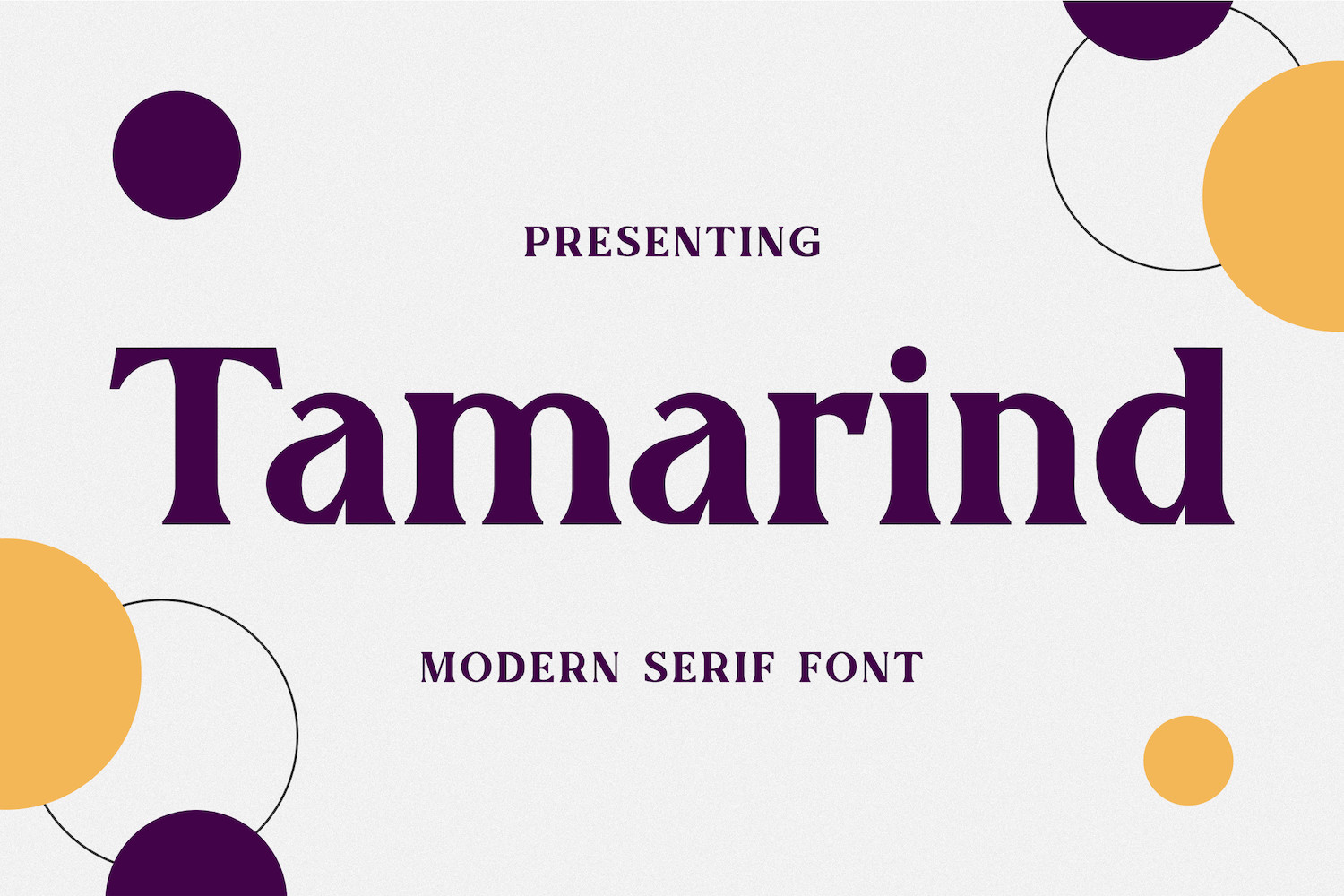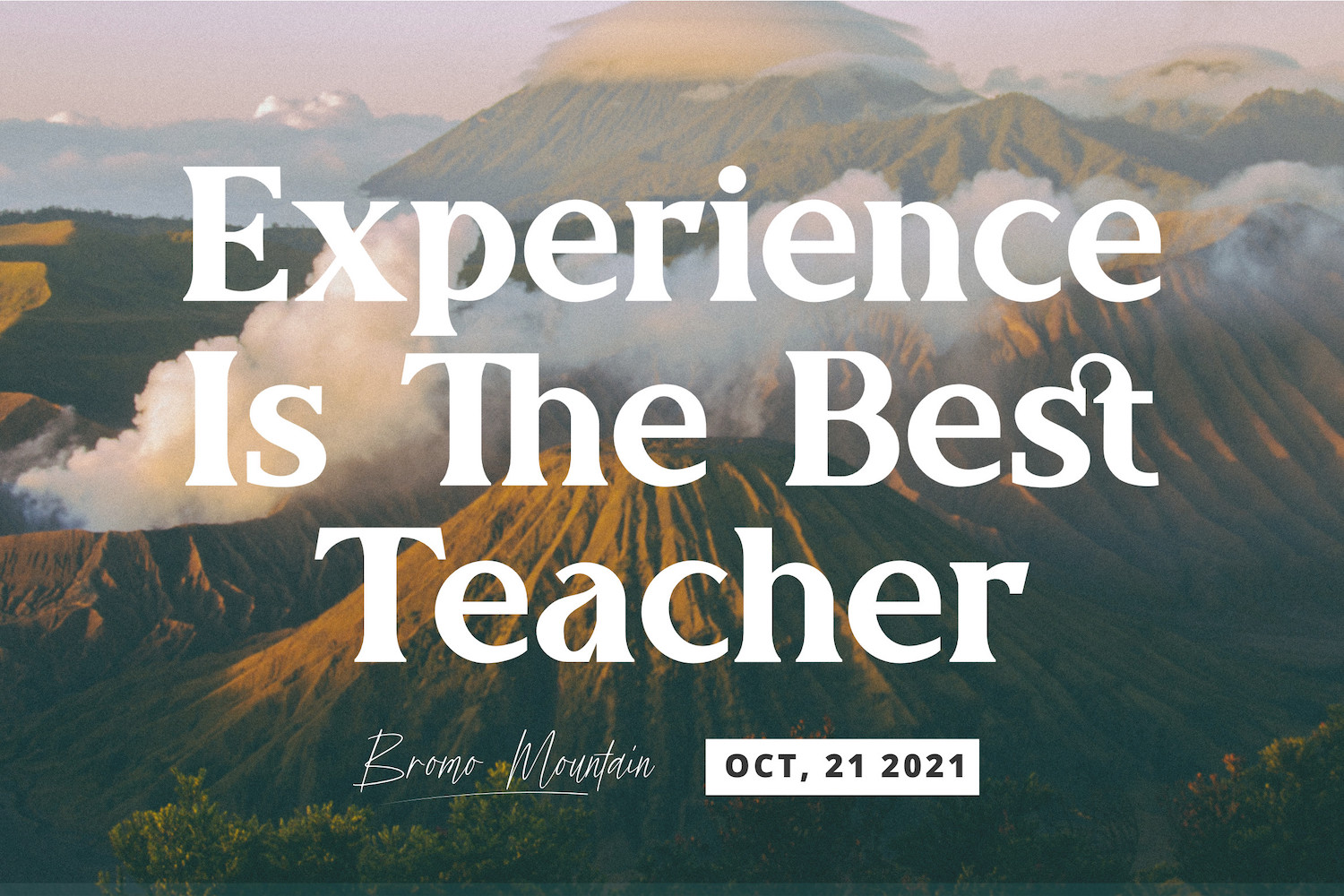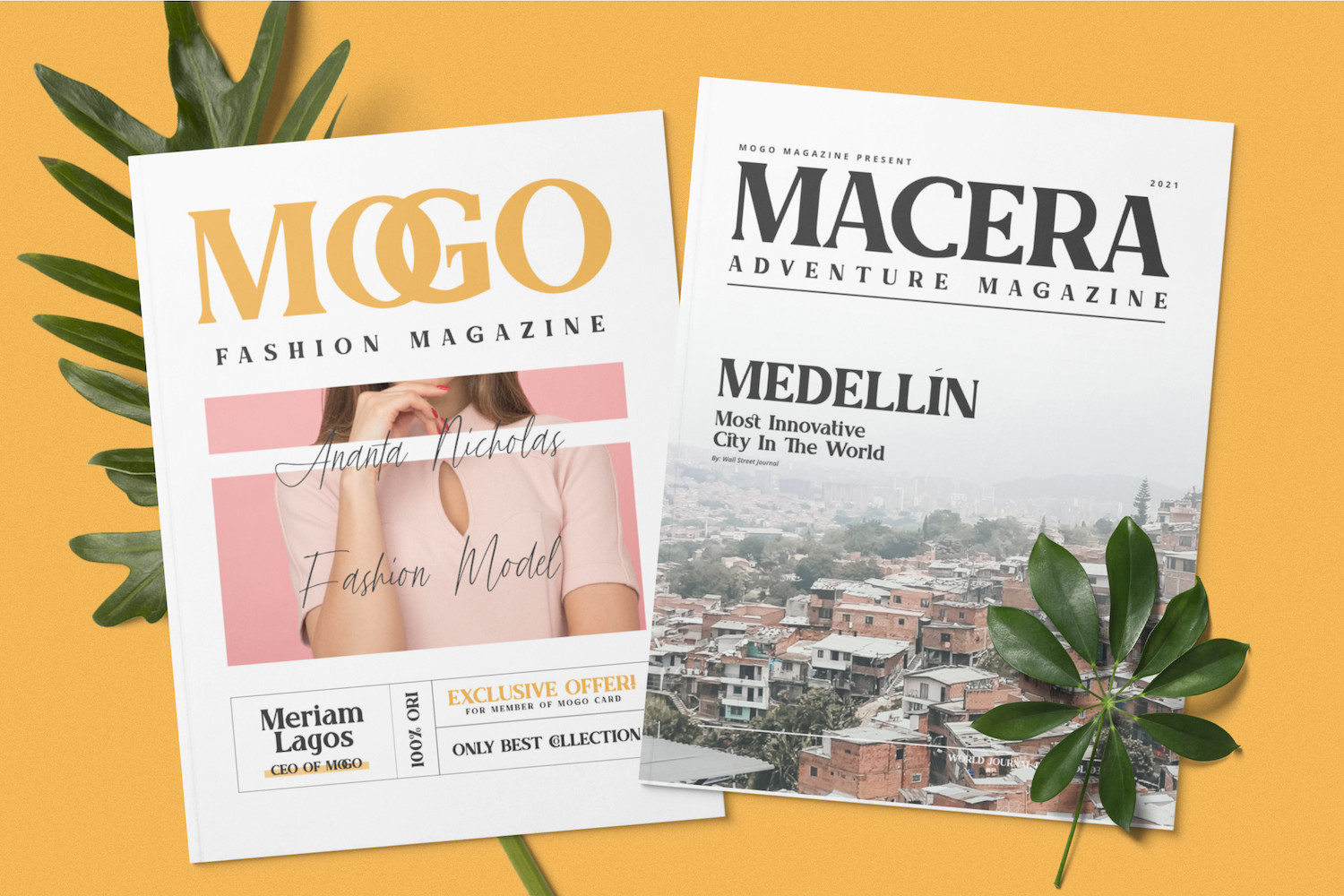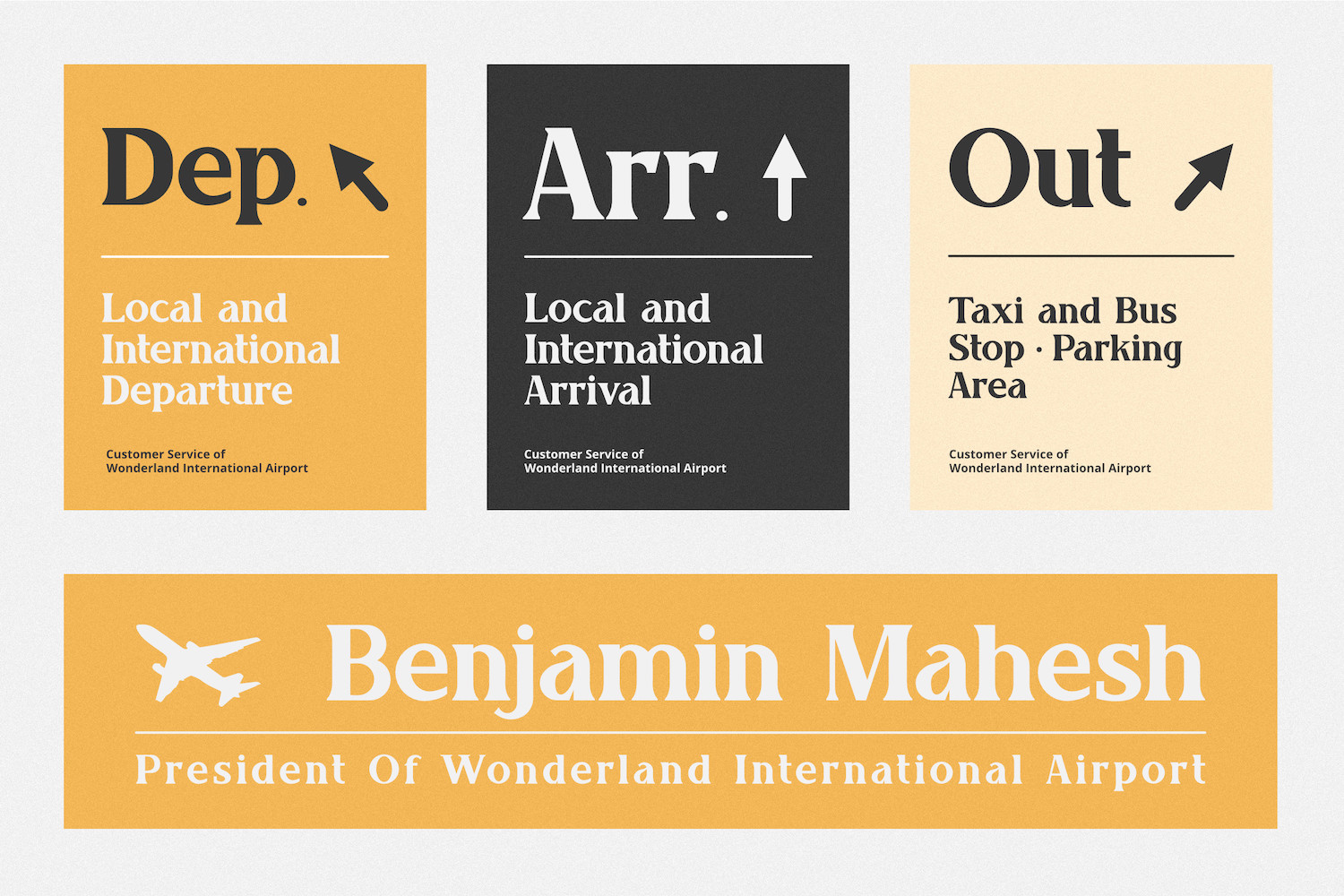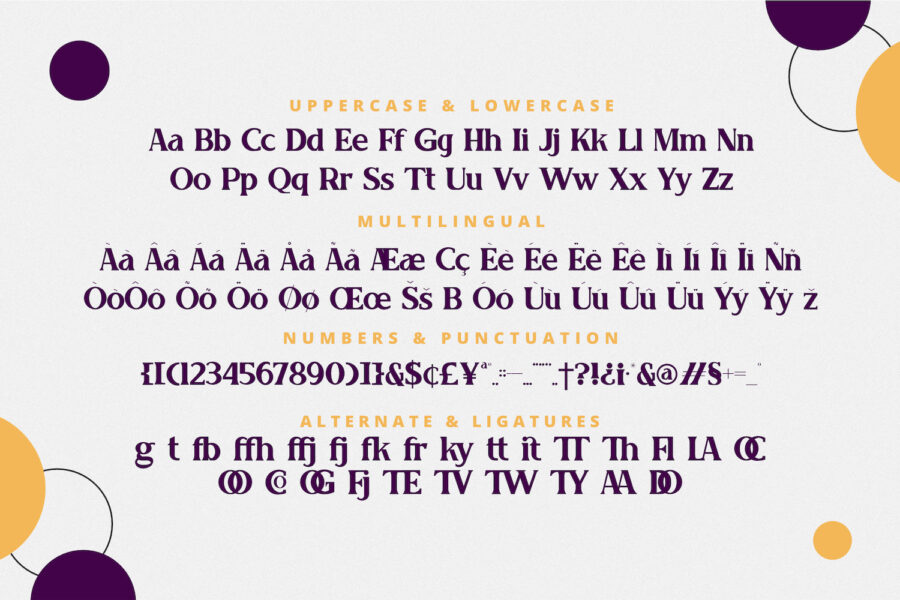
Tamarind is a modern serif font that combines classical elegance with a contemporary edge. With sharp terminals and bold contrast, Tamarind is crafted to stand out in editorial designs, magazine layouts, branding, and high-end advertising. Its clean, elegant curves and distinct alternates create a luxurious, polished aesthetic while retaining strong readability.
This font includes multilingual support, full punctuation, and a rich set of ligatures and alternates—perfect for projects that demand visual sophistication. Whether used for headlines, logos, or signage, Tamarind delivers both character and clarity, making it a timeless serif for premium design needs.
Tamarind